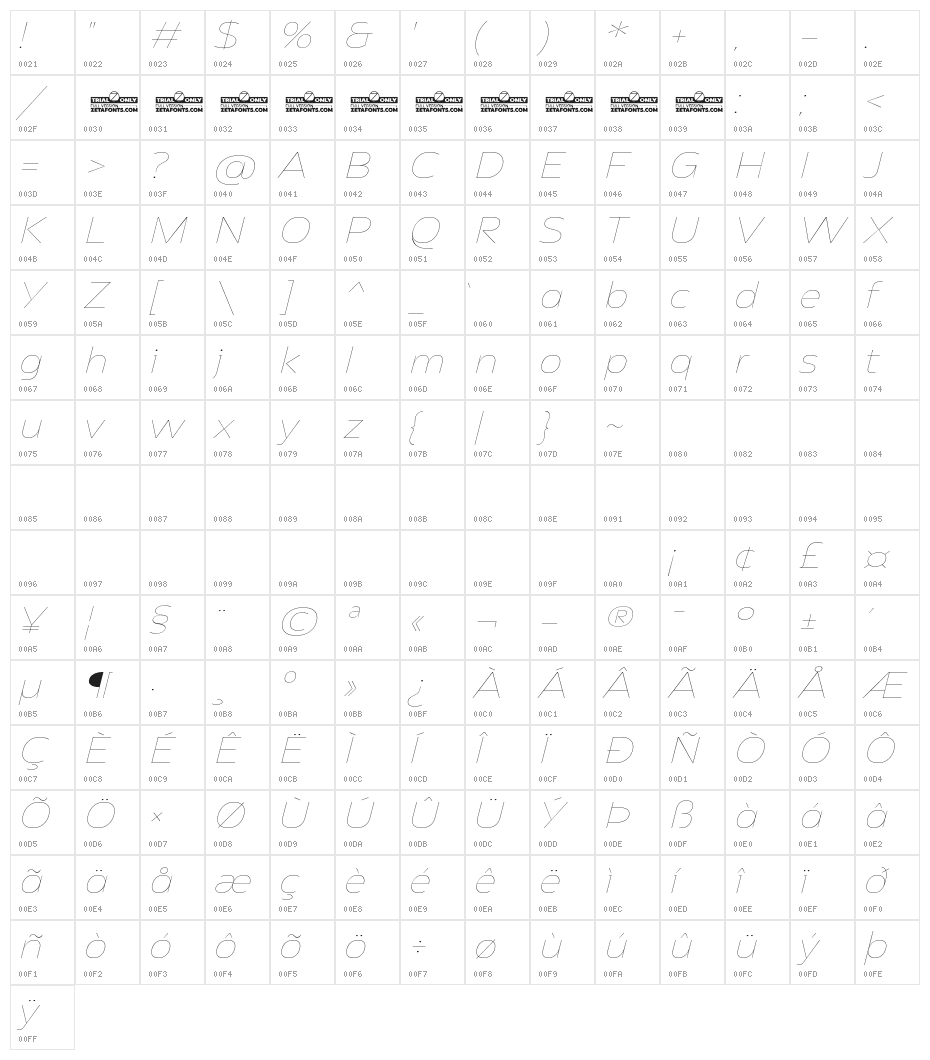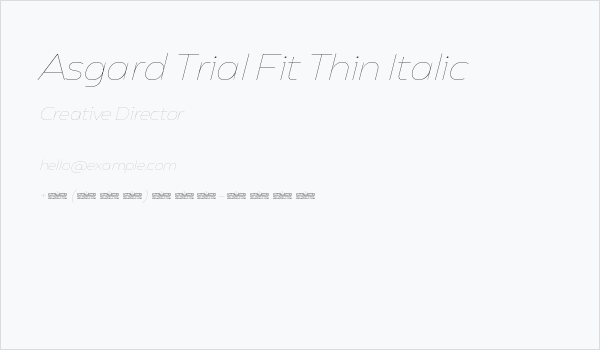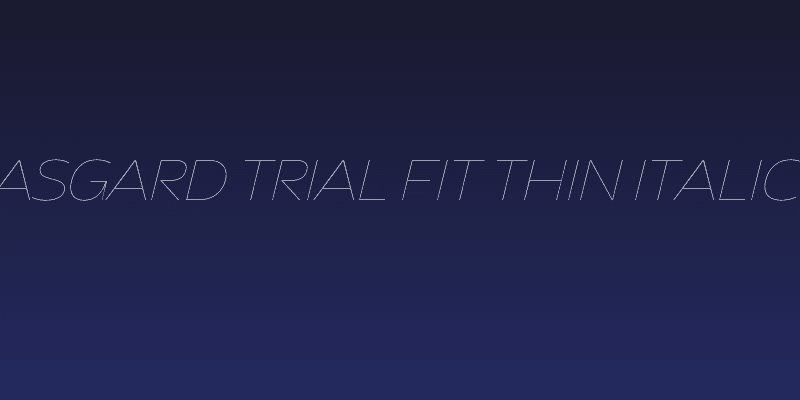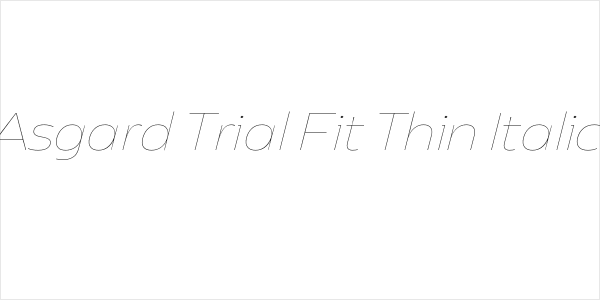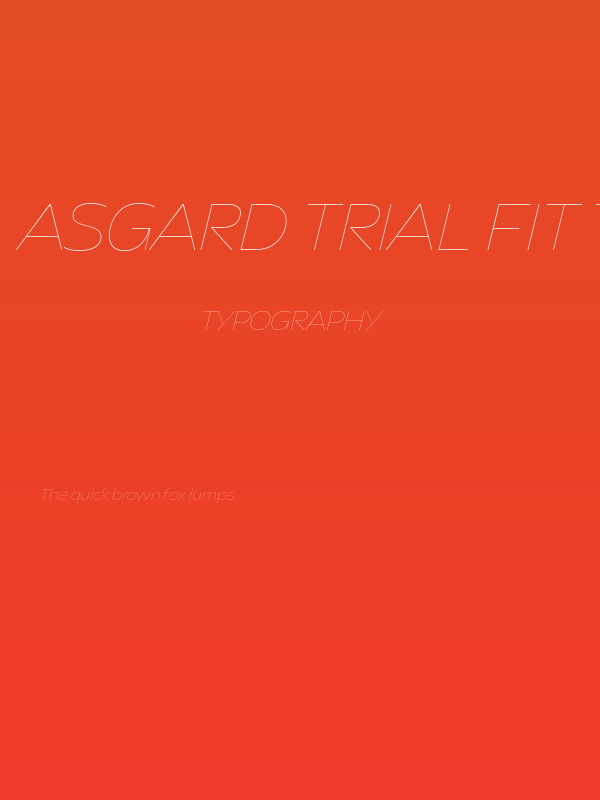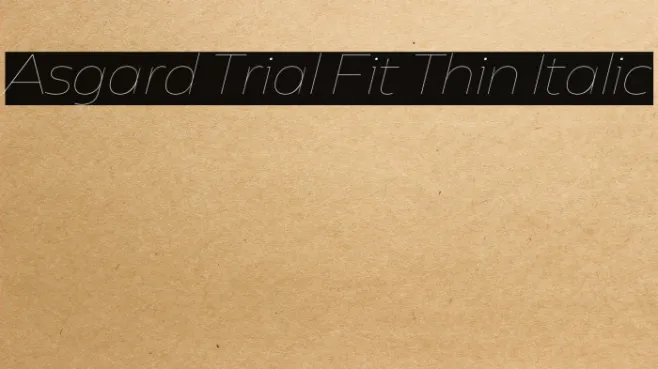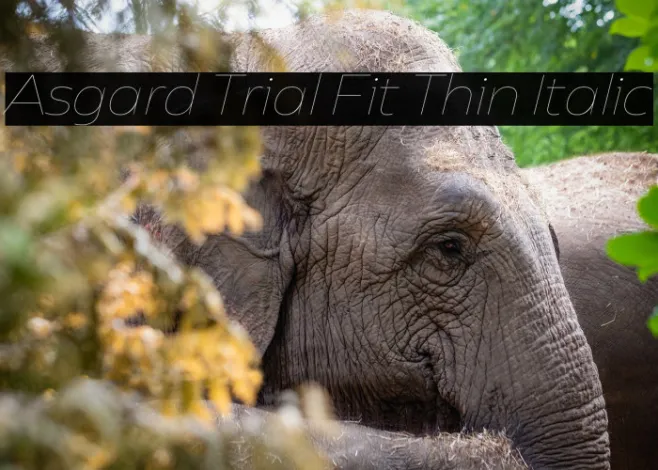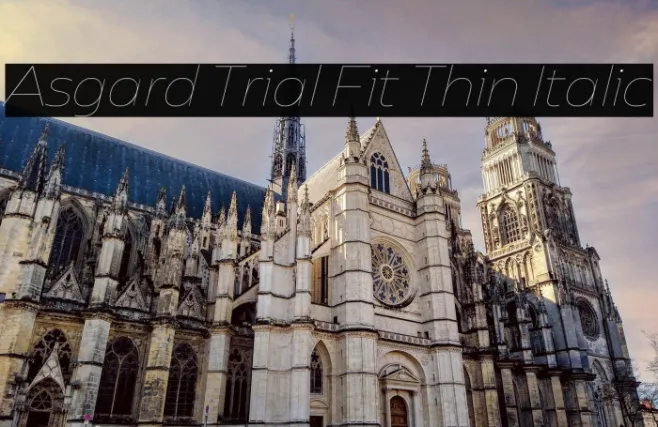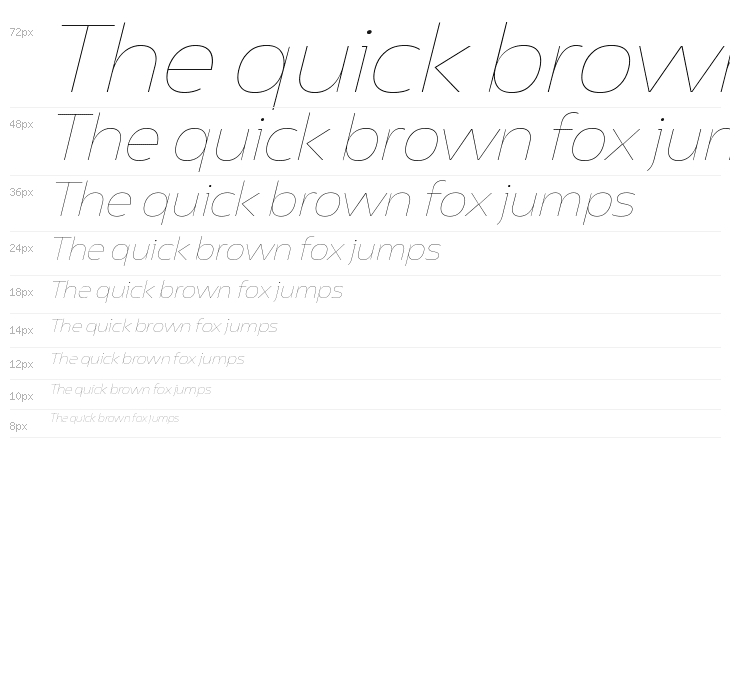
Asgard Trial Fit Thin Italic Font
Asgard Trial Fit Thin Italic Description
This font features a sleek and modern design with thin, elegant lines that give it a sophisticated and airy appearance. The italic style adds a dynamic and fluid touch, making it suitable for contemporary projects. The uppercase and lowercase letters are well-proportioned, with a consistent stroke width that maintains readability. The numerals and special characters are designed to complement the overall aesthetic, ensuring versatility across various applications. Its minimalist style makes it ideal for projects that require a clean and refined look.
| Use Case | Headlines, Logos, Editorial design |
| Proposed Projects | Ideal for fashion magazines, luxury branding, modern websites, and minimalist design projects. |